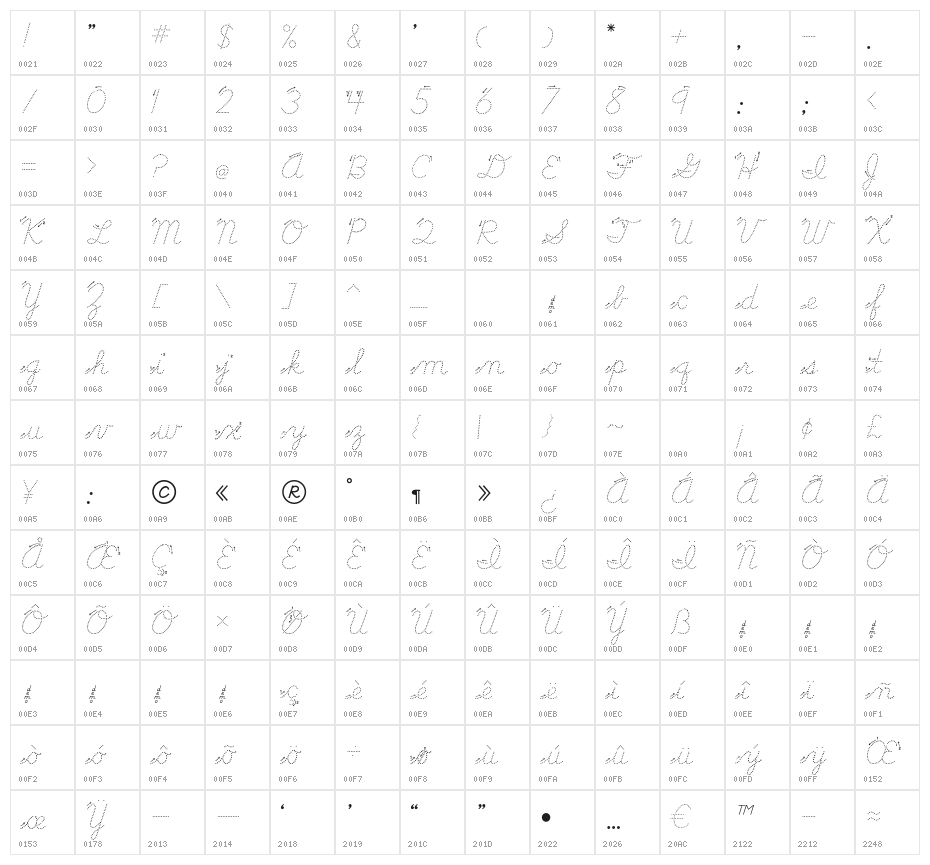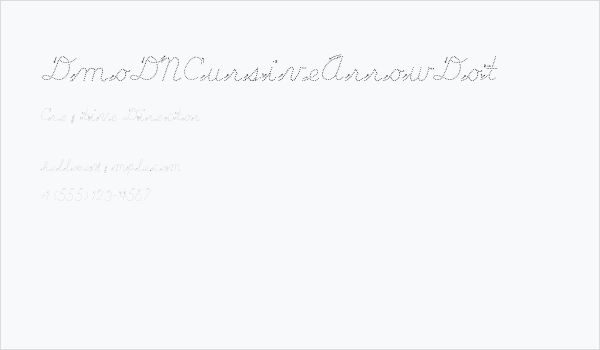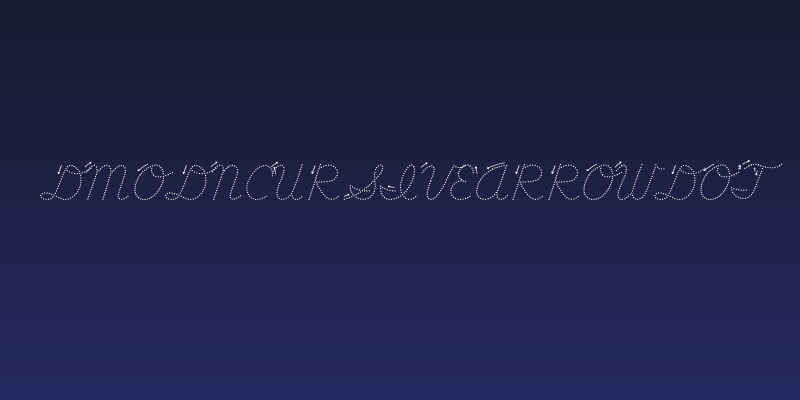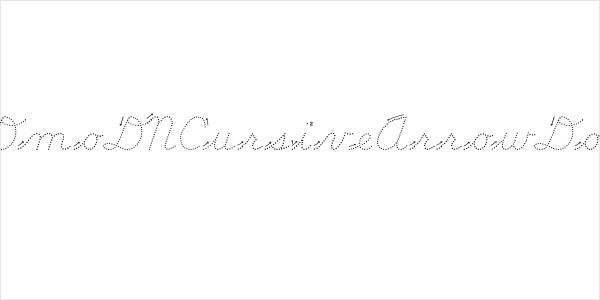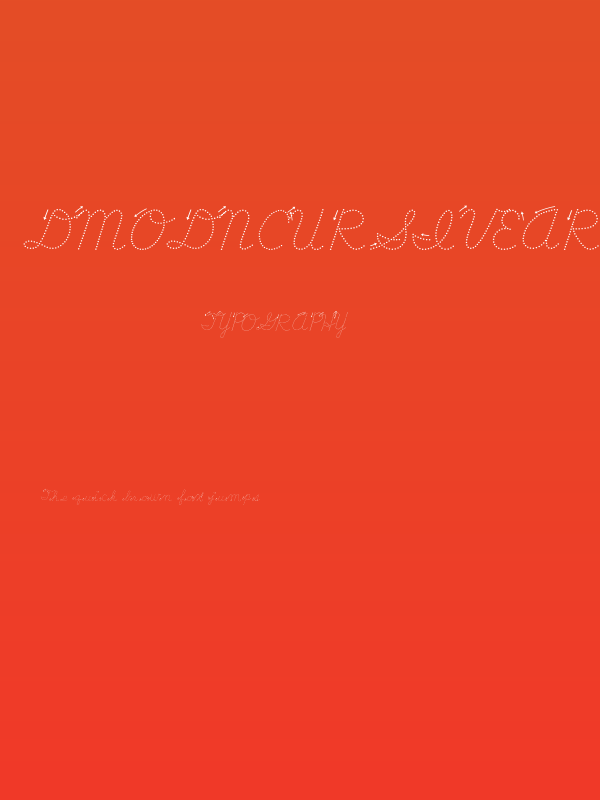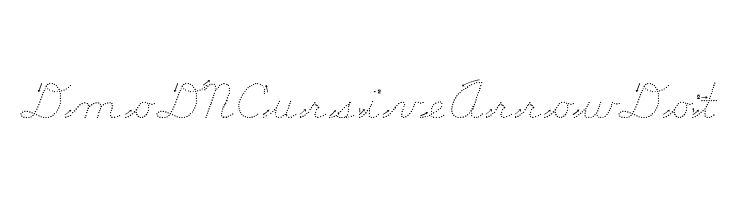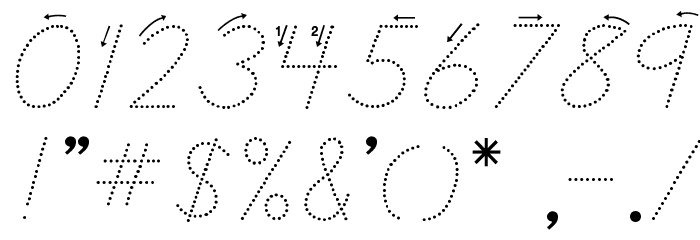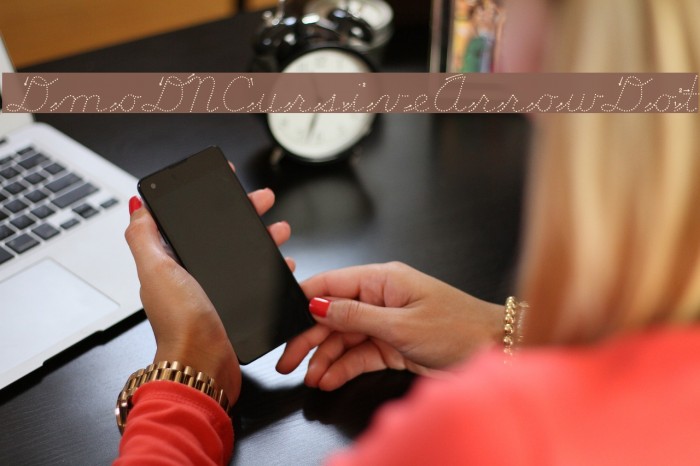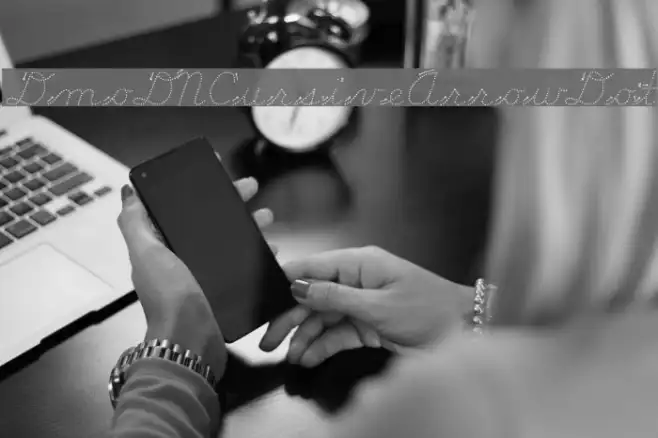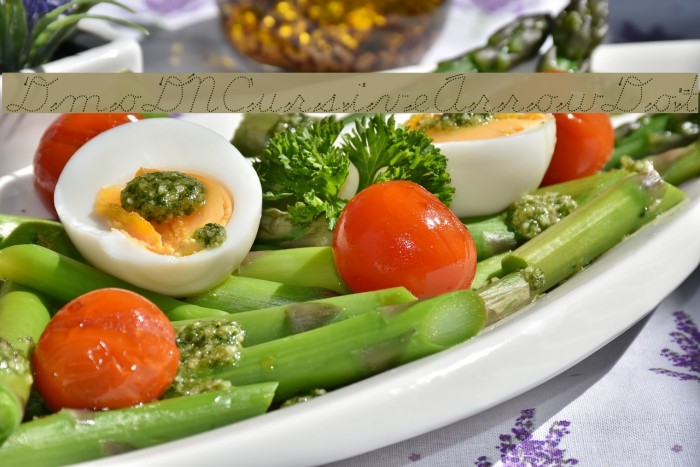
DmoDNCursiveArrowDot Font
DmoDNCursiveArrowDot Description
This font features a dotted cursive style, ideal for educational purposes, particularly in teaching handwriting. The letters are connected in a fluid, continuous manner, with arrows indicating the direction of writing, making it perfect for beginners learning cursive writing. The uppercase and lowercase letters maintain a consistent style, with rounded edges and a playful, approachable appearance. Numbers and special characters are included, following the same dotted pattern, ensuring uniformity across all characters. The font's design is both functional and aesthetically pleasing, providing a clear guide for learners while maintaining an elegant cursive script.
| Overall Style | Educational |
| Use Case | Handwriting practice, educational materials |
| Proposed Projects | Ideal for educational materials, handwriting practice sheets, and children's learning tools. |